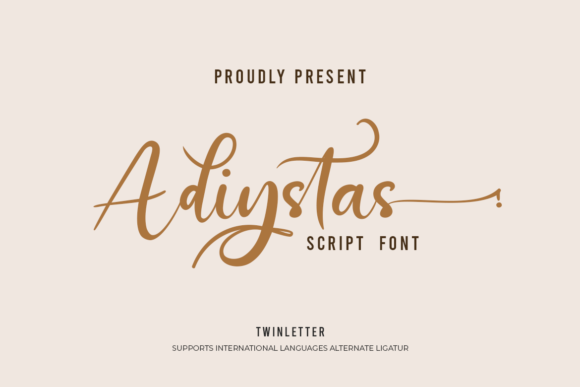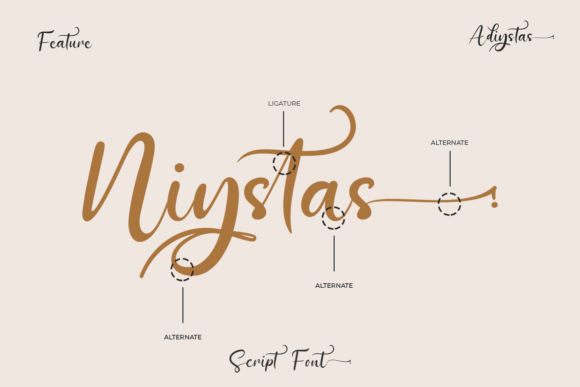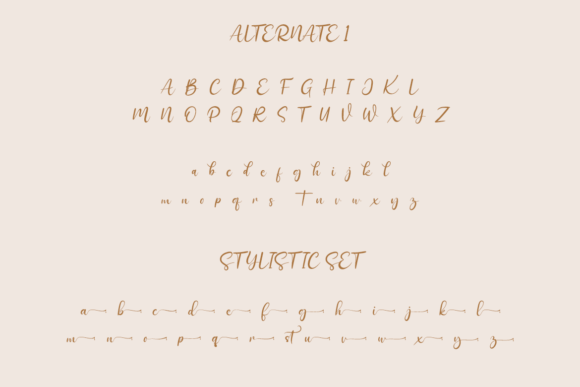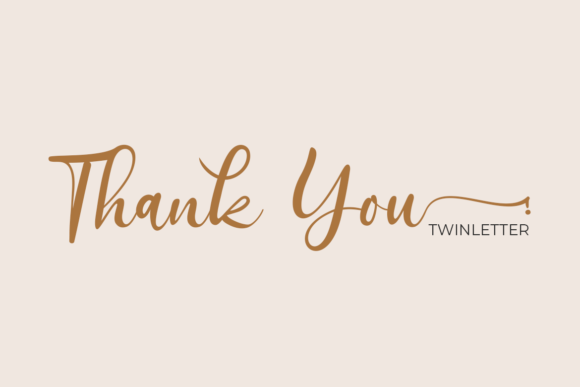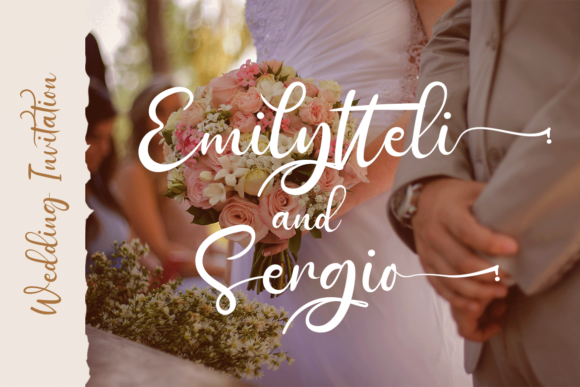
About Adiystas Font
Adiystas is a lovely script font featuring charming, playful characters that seem to dance along the baseline. This font is PUA encoded which means you can access all glyphs and swashes with ease!